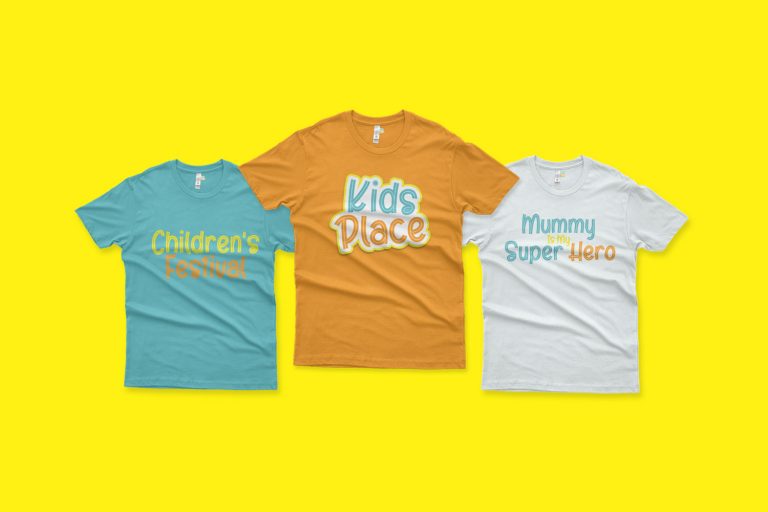
Kids Place Font
Learning is most effective when it feels like play — and Kids Place Font understands this truth instinctively. A fun, cheerful playful sans serif typeface designed specifically for children’s environments, Kids Place strikes the perfect balance between educational clarity and joyful personality that makes young learners feel engaged, comfortable, and genuinely excited.
Kids Place was engineered with children’s readability as its primary design principle. The letterforms are simple and clear, avoiding the complex details and tight spacing that can make type difficult for developing readers. The generous letter spacing, open counters, and consistent stroke widths support reading comprehension, while the rounded, friendly terminals and slightly bouncy proportions create a visual atmosphere of fun and approachability. Every design decision serves a dual purpose: making the font easy for children to read while making it irresistible for them to engage with.
Educational app developers and edtech companies building children’s learning applications rely on Kids Place for its exceptional on-screen legibility and immediately welcoming character. The font communicates to children — and their parents — that learning is safe, fun, and rewarding. School supply manufacturers, educational publisher companies, and children’s book brands use Kids Place across packaging, cover design, and marketing materials for its ability to speak directly to young audiences and the adults who make purchase decisions on their behalf.
Kindergarten classroom materials, preschool activity books, educational worksheet design, children’s museum signage, and family entertainment venue branding all benefit from Kids Place’s combination of clarity and cheerfulness. Toy brands, children’s clothing companies, and kids’ event organisers use the font to signal immediately that their products and services are designed with children’s joy as the central purpose.